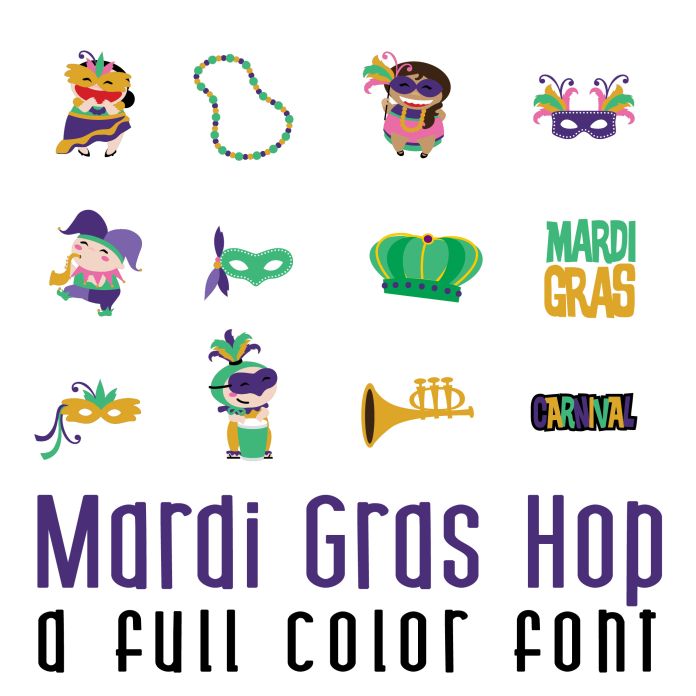
This fun full color font features 26 mardi gras imagery. Perfect for classrooms, teachers, gifts, decor, scrap book pages, planner stickers and more!